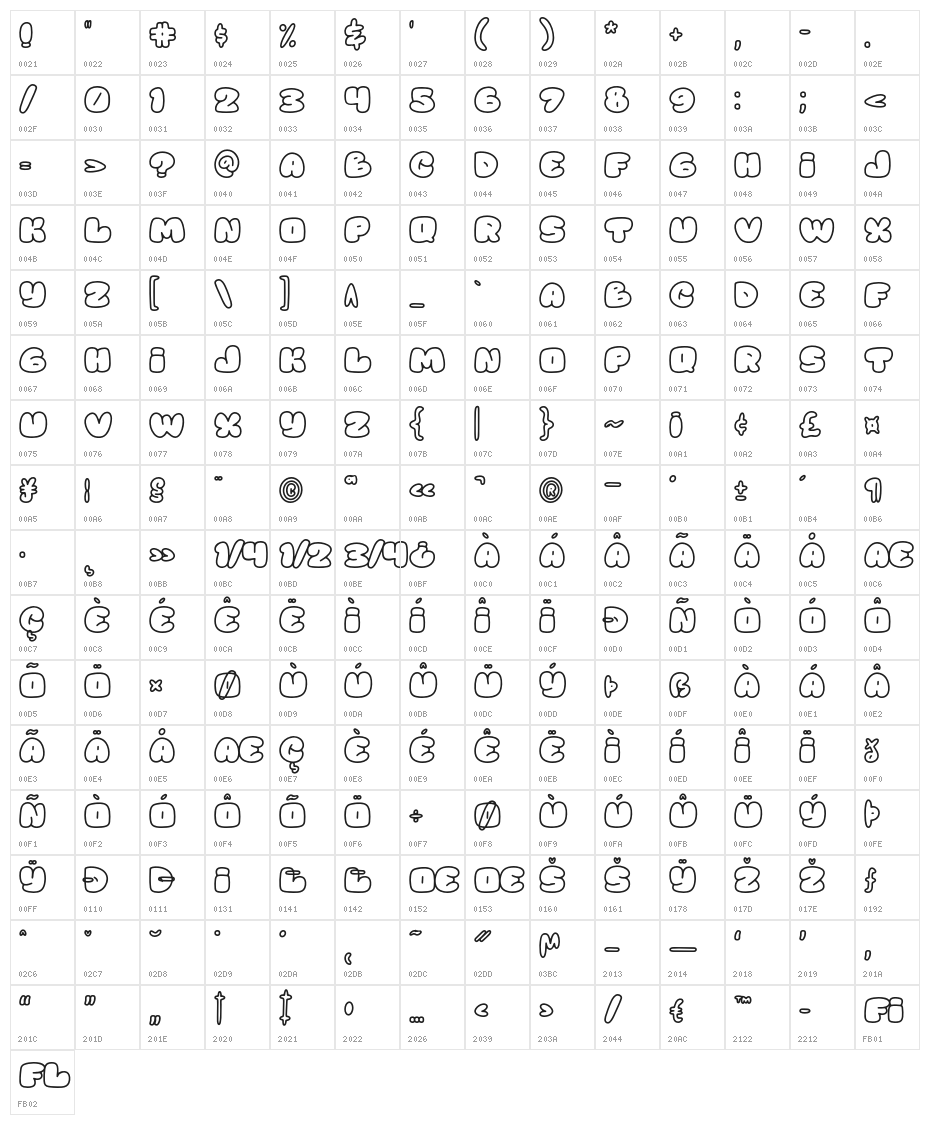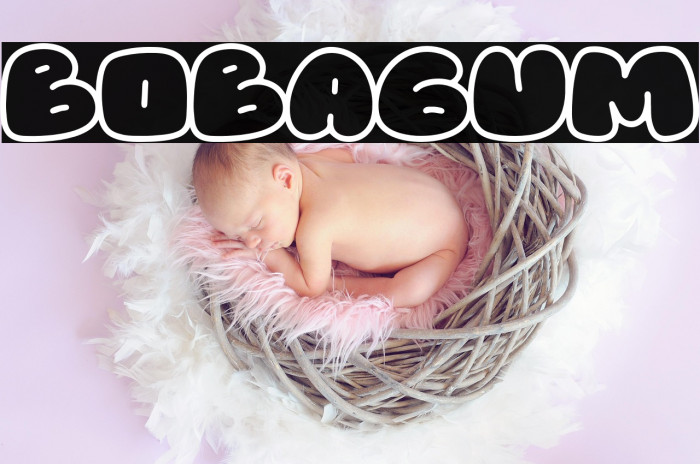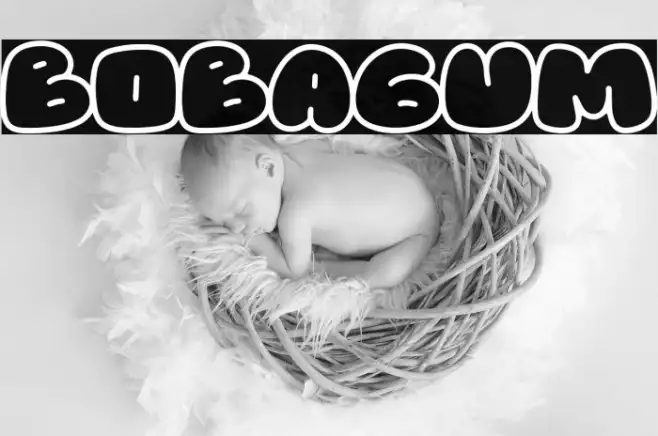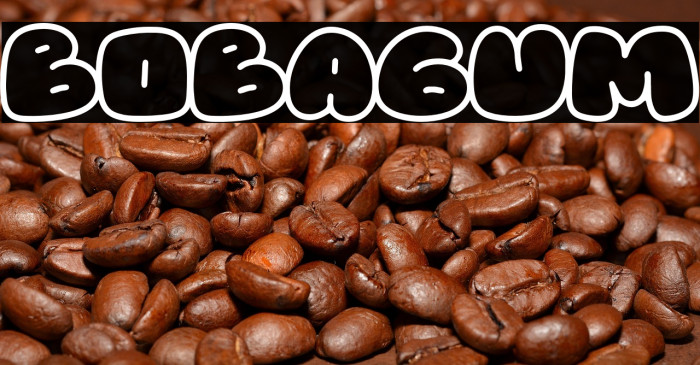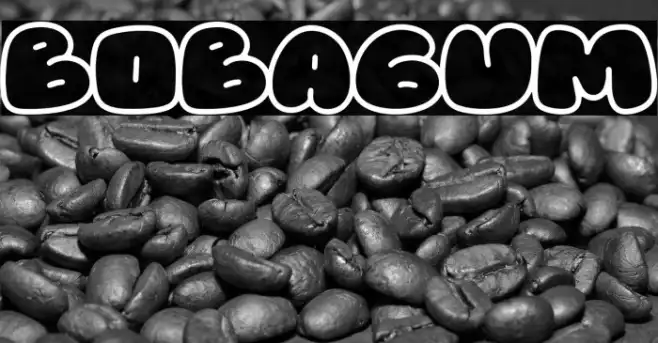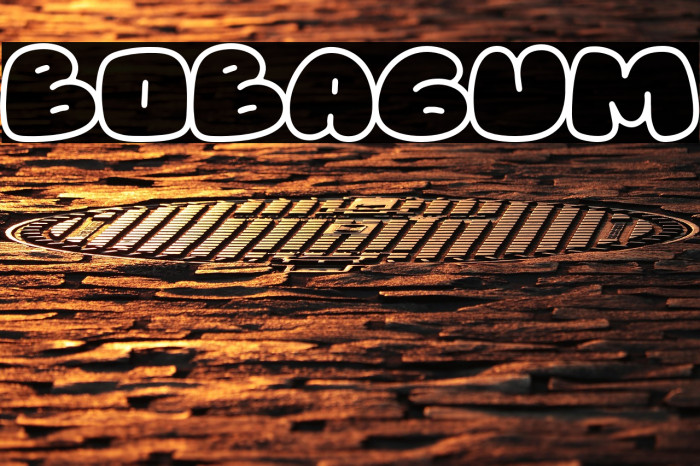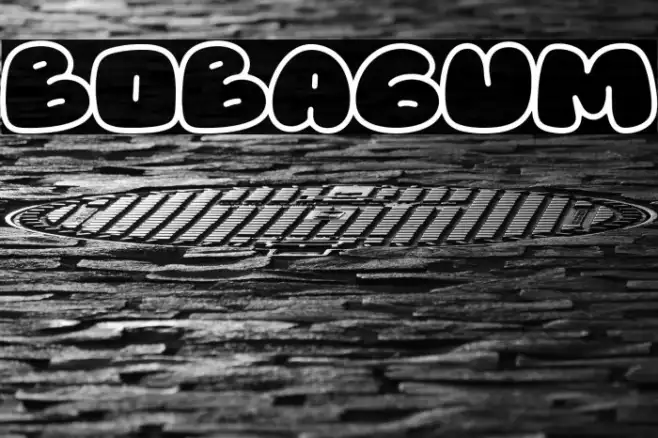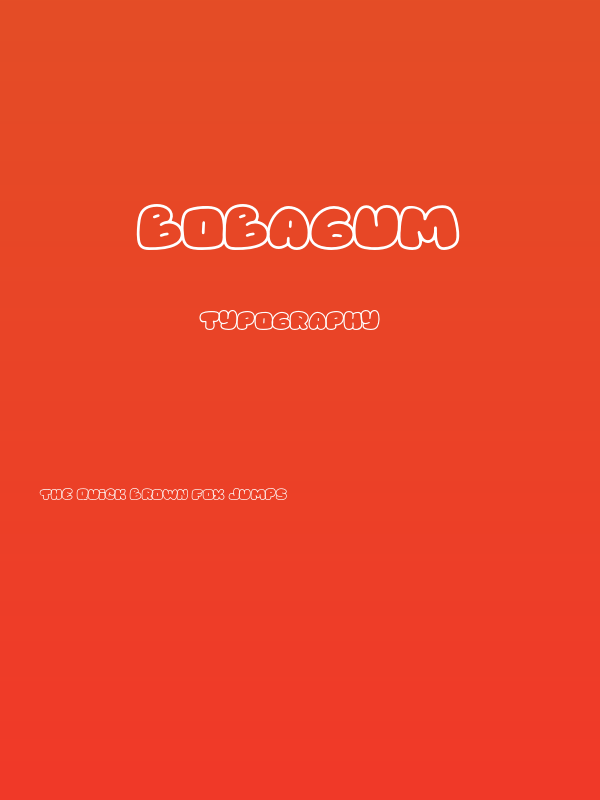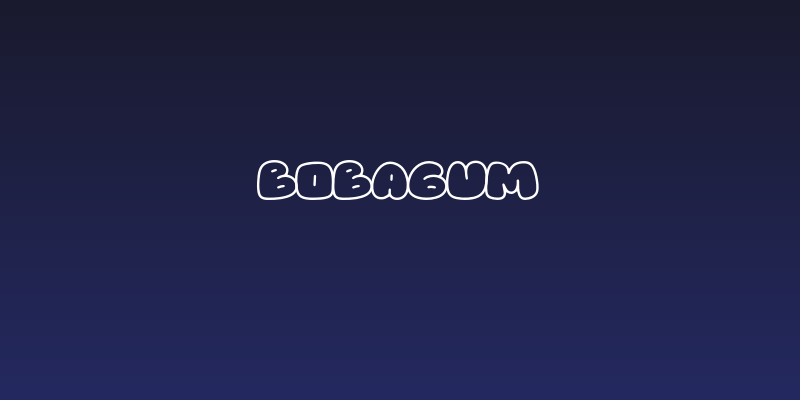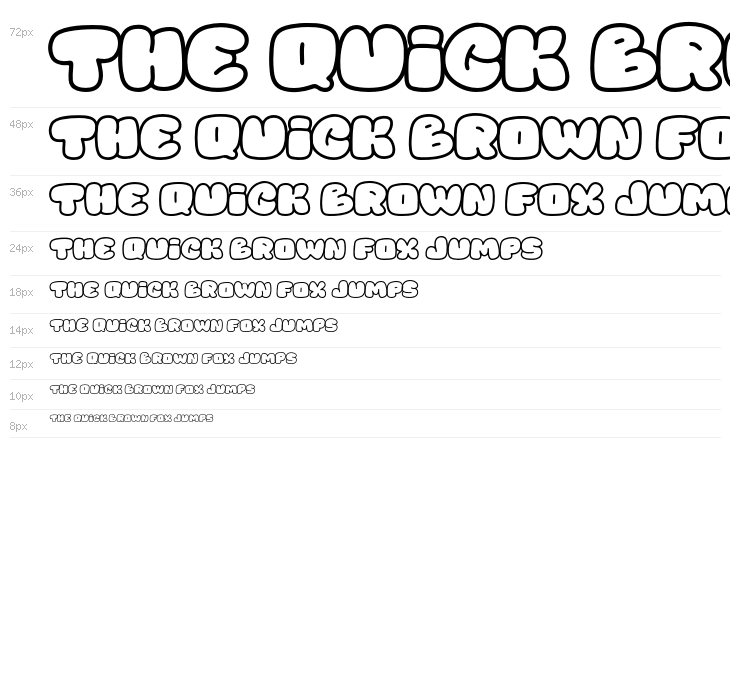
Bobagum Font
Bobagum Description
This playful and bold font features a bubble-like appearance with thick, rounded edges and a cartoonish style. The characters are evenly spaced, maintaining a consistent width throughout, which enhances readability despite their decorative nature. The font's design is reminiscent of comic book lettering, with a fun and informal vibe that makes it suitable for creative and lighthearted projects. The uniform stroke thickness and lack of sharp angles contribute to its approachable and friendly look, making it ideal for children's materials, party invitations, or any design that aims to convey joy and whimsy.
| Overall Style | Playful, Cartoonish |
| Proposed Projects | Ideal for children's books, party invitations, comic strips, and playful branding. |